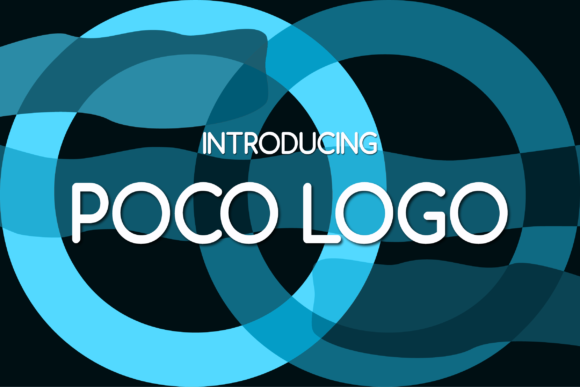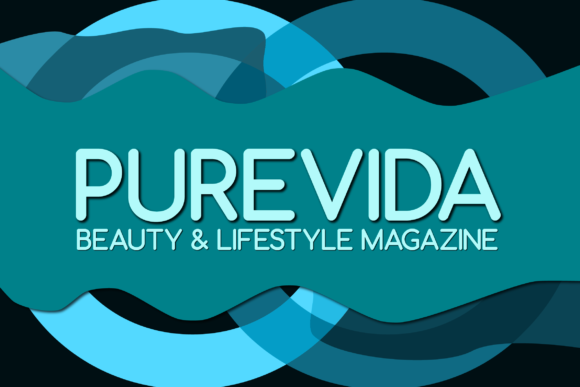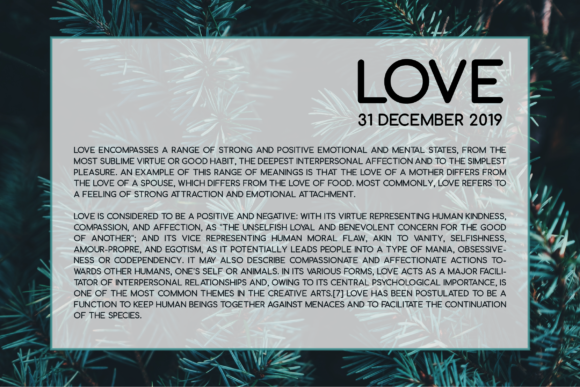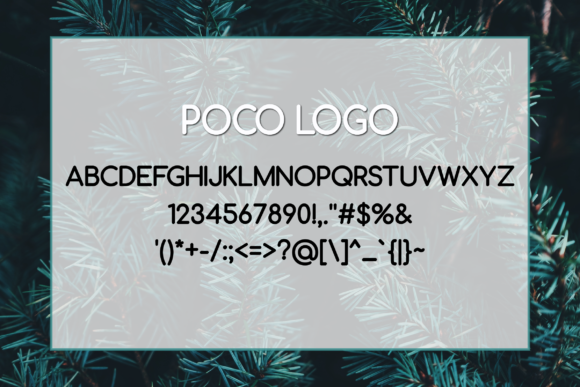
Poco Logo Font
About the Poco Logo Font
The Poco Logo Font offers a perfect balance of form and function for your design needs. Poco Logo is a low contrast, classic sans serif font featuring well-balanced proportions. Its uppercase letters are strongly influenced by Roman Inscriptional Capital letters, while its lowercase letters and their proportions are influenced by old style serif typography. Poco Loco will give your typographic work a unique feel, which makes it a reliable font for branding projects, poster displays, websites, packaging, and much more!
Poco Logo’s inherent balance makes it ideal for headlines, logos, and short-form text in branding applications. Its classical influences lend a sophisticated air to packaging and posters, particularly those with a clean, minimalist aesthetic. However, its low contrast limits readability in body text or long paragraphs; avoid using it for UI elements or extensive website copy.
The font possesses a subtle boldness and understated elegance. It projects a sense of timeless quality and reliability, making it perfect for brands aiming for a sophisticated yet approachable image – think high-end consumer goods, artisanal products, or professional services.
For effective pairings, consider complementing Poco Logo with a warmer serif like Garamond for a classic feel, or a geometric sans-serif like Futura for a more modern contrast. A delicate script font could add a touch of personality to the logo, providing an elegant counterpoint.